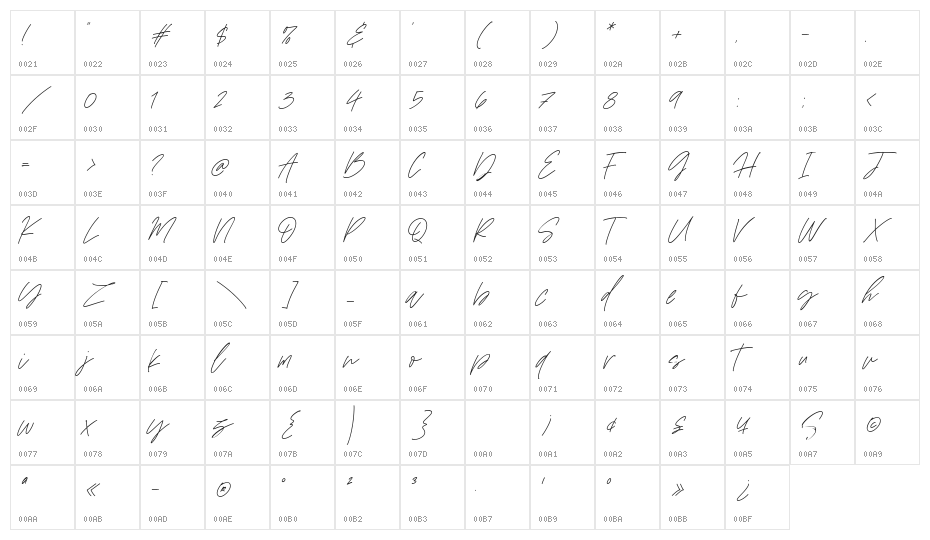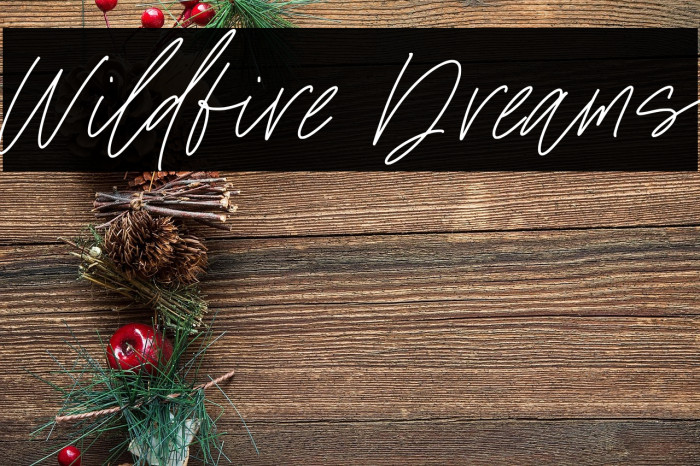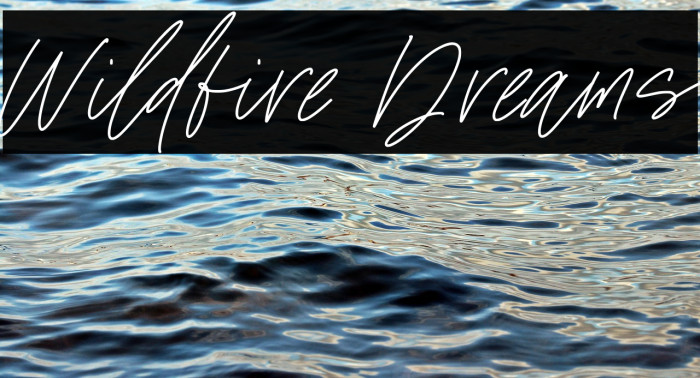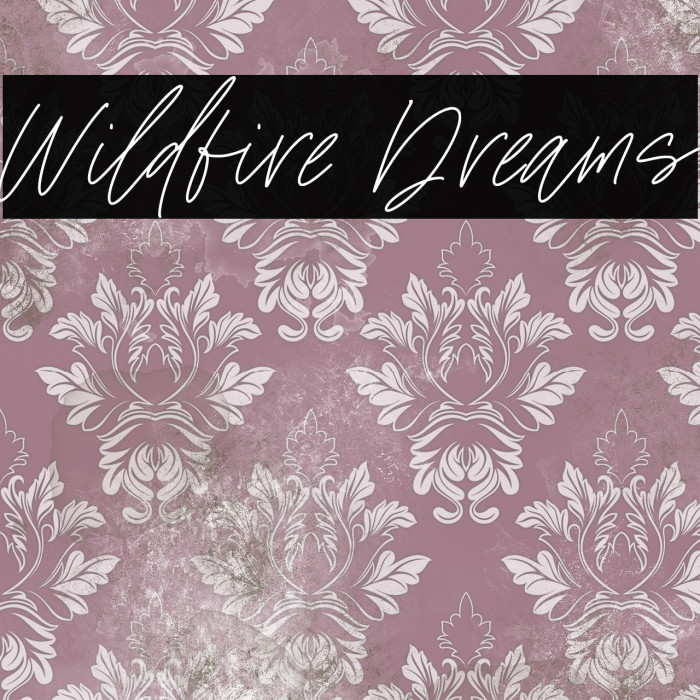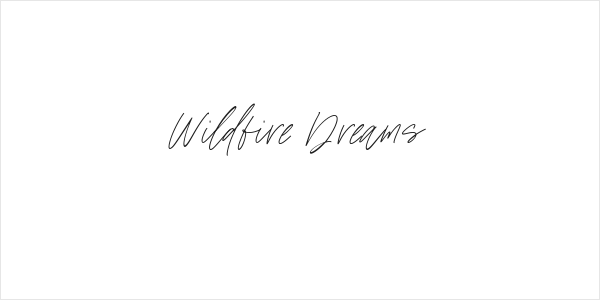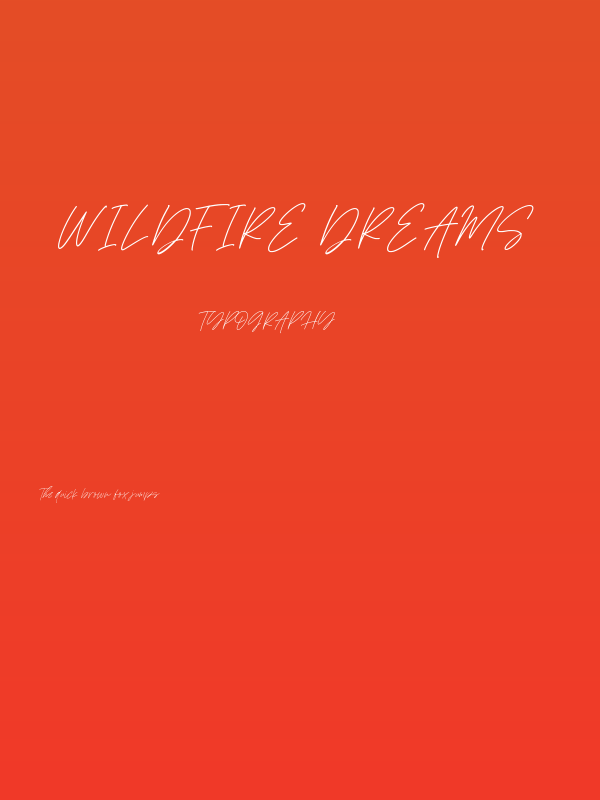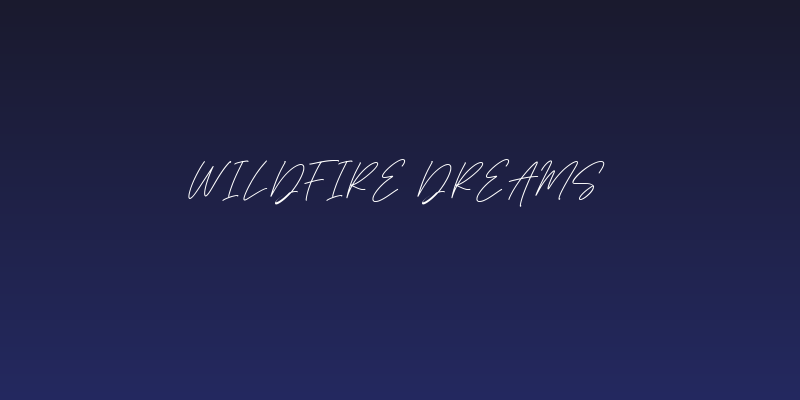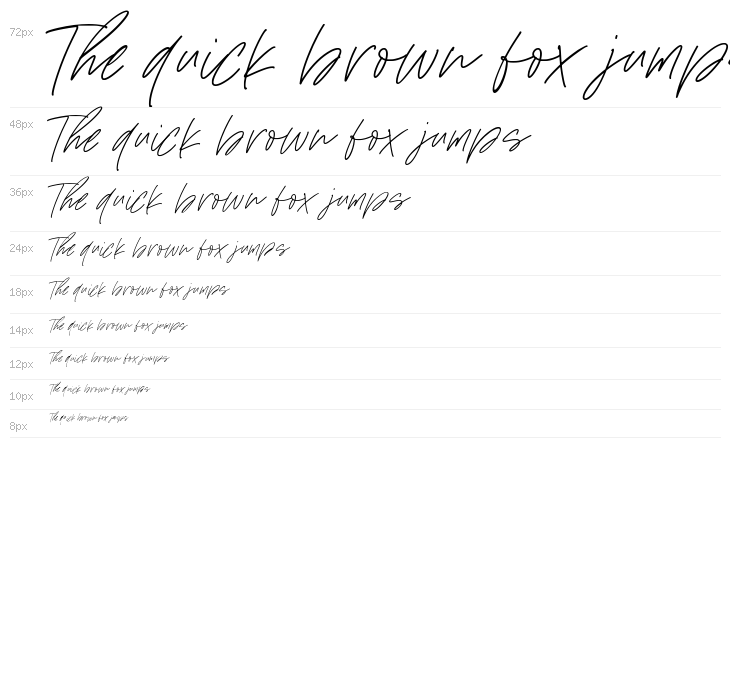
Wildfire Dreams Font
Wildfire Dreams Description
This font exudes a casual, handwritten style with a fluid and dynamic appearance. The characters are connected in a cursive manner, giving it a personal and informal touch. The strokes are smooth and slightly varied in thickness, adding to its organic feel. The uppercase letters are slightly larger and more pronounced, while the lowercase letters maintain a consistent flow. Numbers and special characters are integrated seamlessly, maintaining the overall aesthetic. This font is ideal for projects that require a personal, intimate touch, such as invitations, greeting cards, or personal branding.
| Overall Style | Casual, Personal |
| Use Case | Headlines, Personal projects, Creative designs |
| Proposed Projects | Ideal for invitations, greeting cards, personal branding, and creative projects requiring a personal touch. |